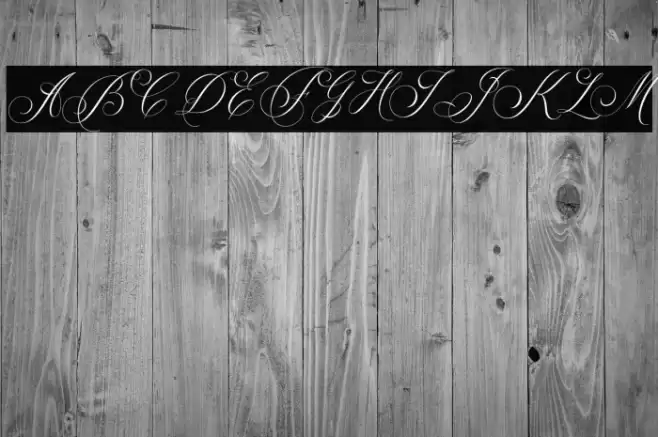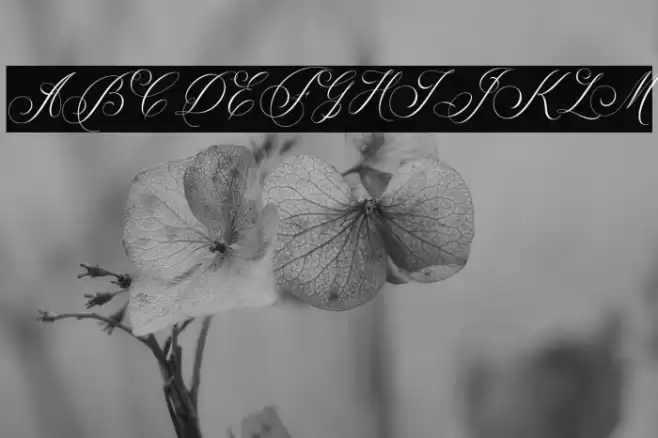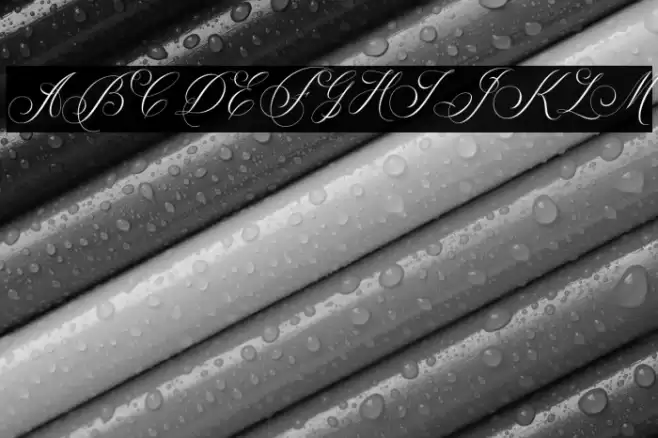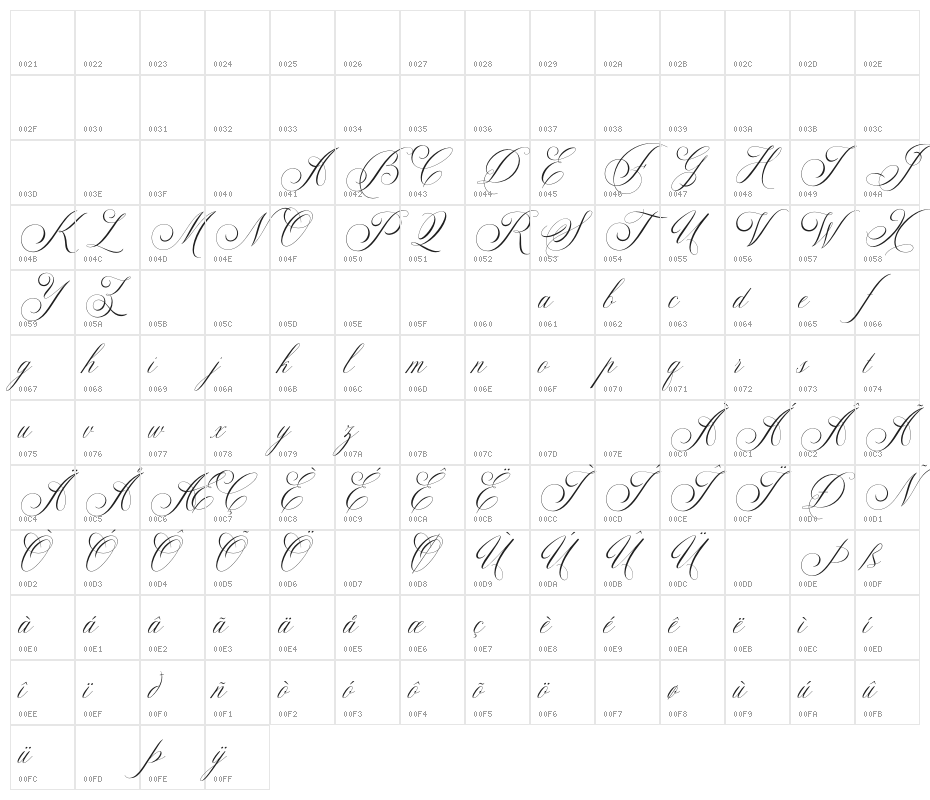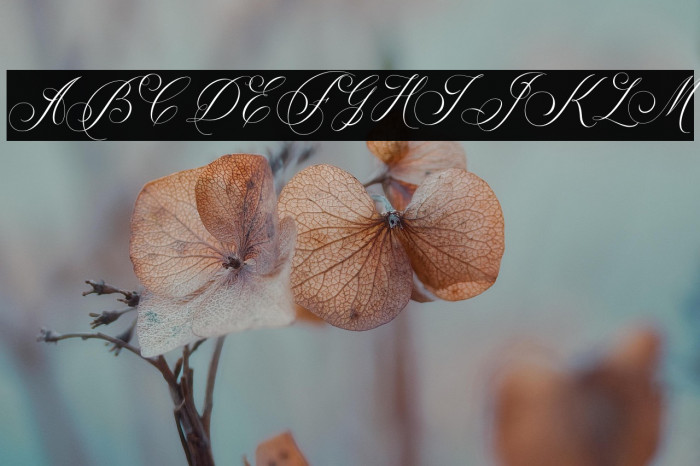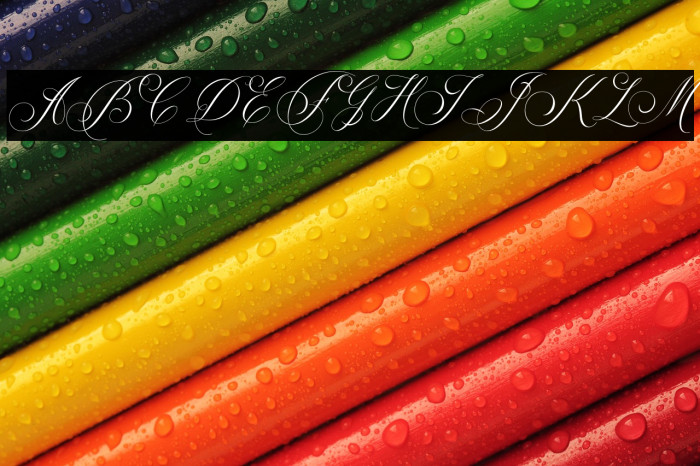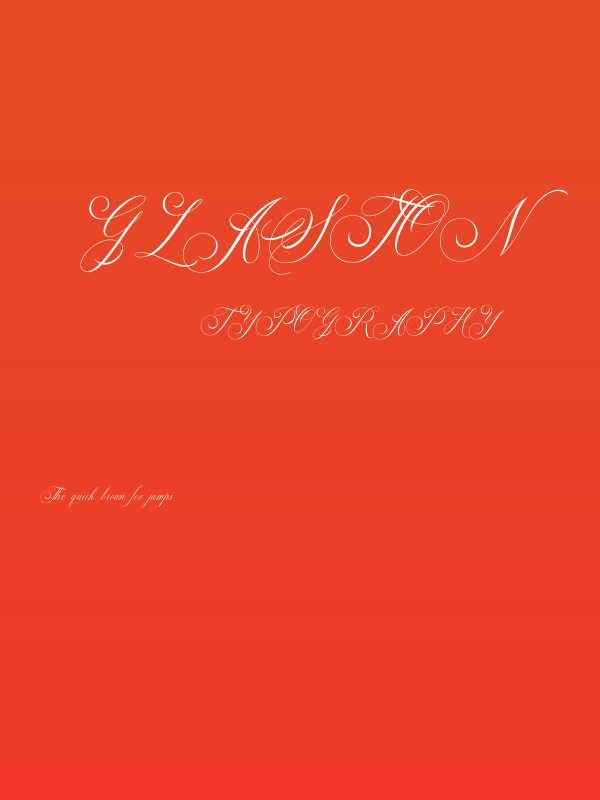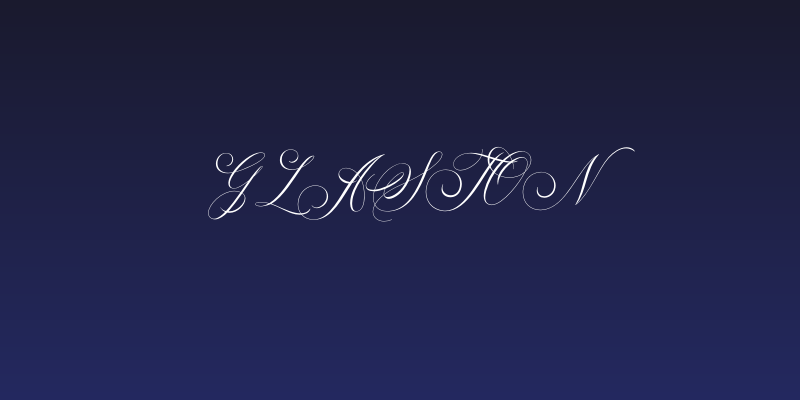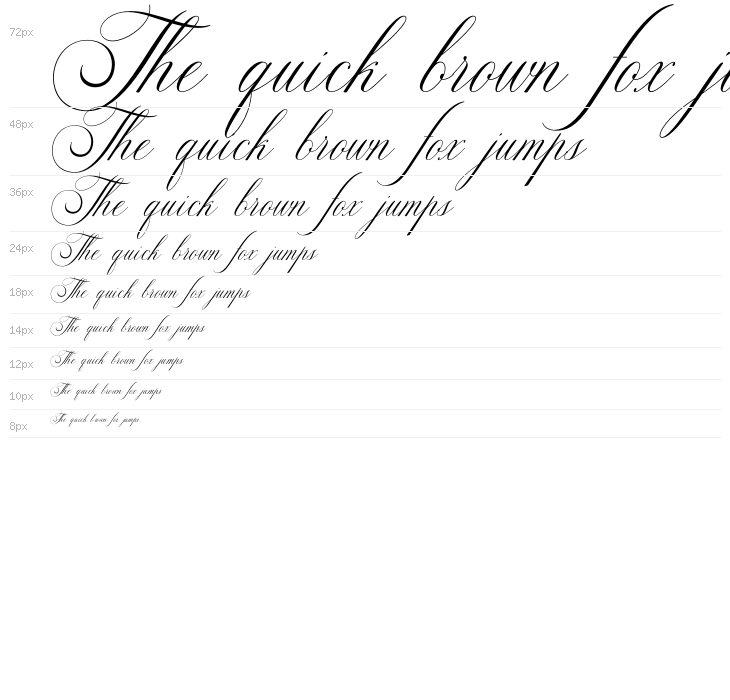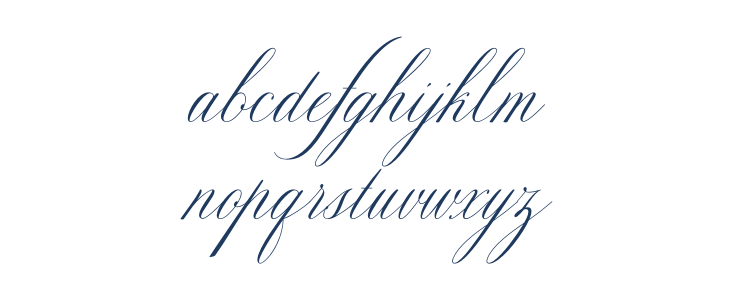
Glaston Font
Glaston Description
This elegant script font features intricate, flowing lines and a sophisticated style. The uppercase letters are adorned with elaborate swashes and flourishes, creating a sense of grandeur and formality. The lowercase letters maintain a smooth, connected flow, enhancing readability while retaining the decorative essence. The font's overall appearance is reminiscent of classic calligraphy, making it ideal for formal invitations, certificates, and branding that requires a touch of elegance. The delicate strokes and high contrast between thick and thin lines add to its refined aesthetic, making it suitable for projects that aim to convey luxury and sophistication.
An elegant script font with intricate swashes and high contrast, ideal for formal uses from Uncategorized fonts.
- Font: Glaston
- Overall Style: Classic